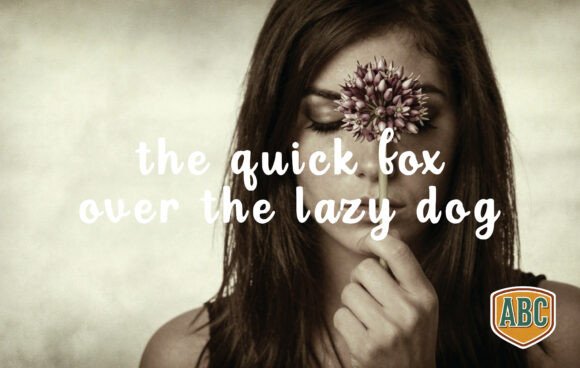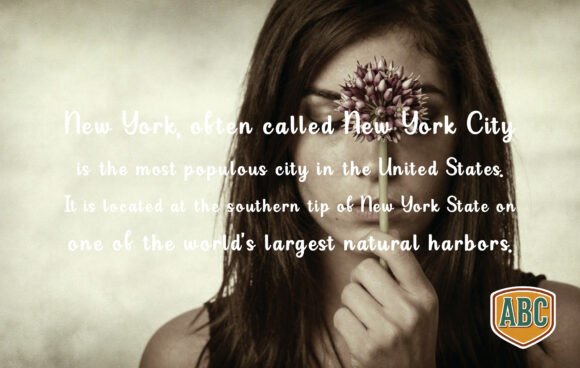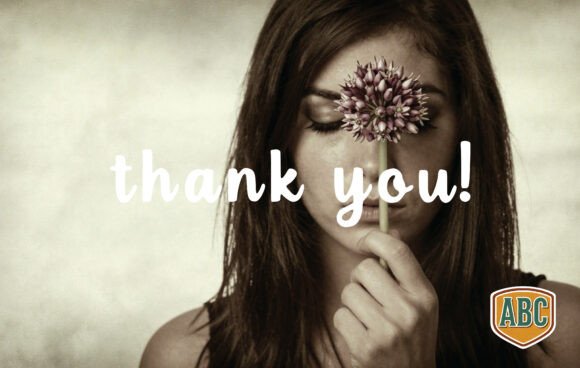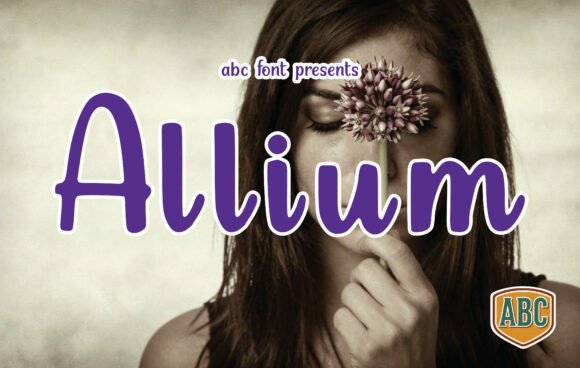
The Allium Font: A Timeless Handwritten Treasure
I’ll never forget the design struggle I faced while working on a wedding stationery project. My client wanted a font that was elegant, yet playful; something that would make their special day truly unforgettable. After scouring the internet for hours, I stumbled upon the Allium font, and it was love at first sight! 💕
The Allium font is a beautiful, handwritten typeface that has captured the hearts of designers and crafters alike. Its unique, cursive style makes it perfect for creating eye-catching logos, branding, and quotes that will leave a lasting impression.
What I Love About Allium Font
Here’s what makes Allium font a standout choice for designers:
- ✨ Unique and beautiful touch: Every letter has its own distinct character, making it perfect for designs that require a personal touch.
- ✅ Timeless elegance: Allium font’s classic style ensures it will never go out of fashion.
- 💫 Versatility: Suitable for a wide range of design projects, from wedding stationery to social media graphics.
Honest Review: The Not-So-Perfect Allium Font
While Allium font is a stunning choice, it’s not without its quirks:
- ⚠️ Occasional kerning issues: Some users have reported minor kerning issues, especially when using the font at smaller sizes.
The Story Behind Allium Font
The Allium font was designed by a talented typographer who drew inspiration from classic, handwritten scripts. The font’s creator aimed to craft a typeface that would evoke a sense of timeless elegance and sophistication. With its unique, cursive style, Allium font has become a favorite among designers and crafters worldwide.
| Q: What is the Allium font best suited for? | A: Allium font is perfect for designs that require a touch of elegance and sophistication, such as wedding stationery, branding, and quotes. |
| Q: Is Allium font available in different styles? | A: Currently, Allium font is available in a single style. However, some font packages may include variations, such as italic or bold. |